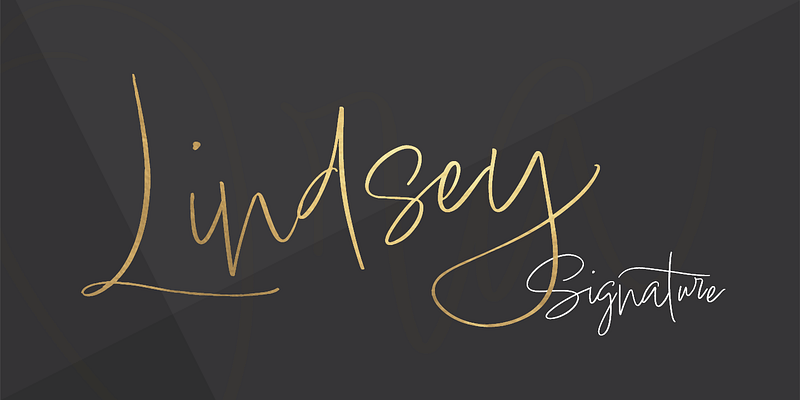
Lindsey Signature Font Free Download is a stylish and elegant handwritten script font designed to mimic the look of a personal signature. With its smooth, flowing lines and natural pen-like strokes, this font is perfect for branding, social media graphics, business cards, wedding invitations, and luxury product packaging that calls for a modern, feminine touch.